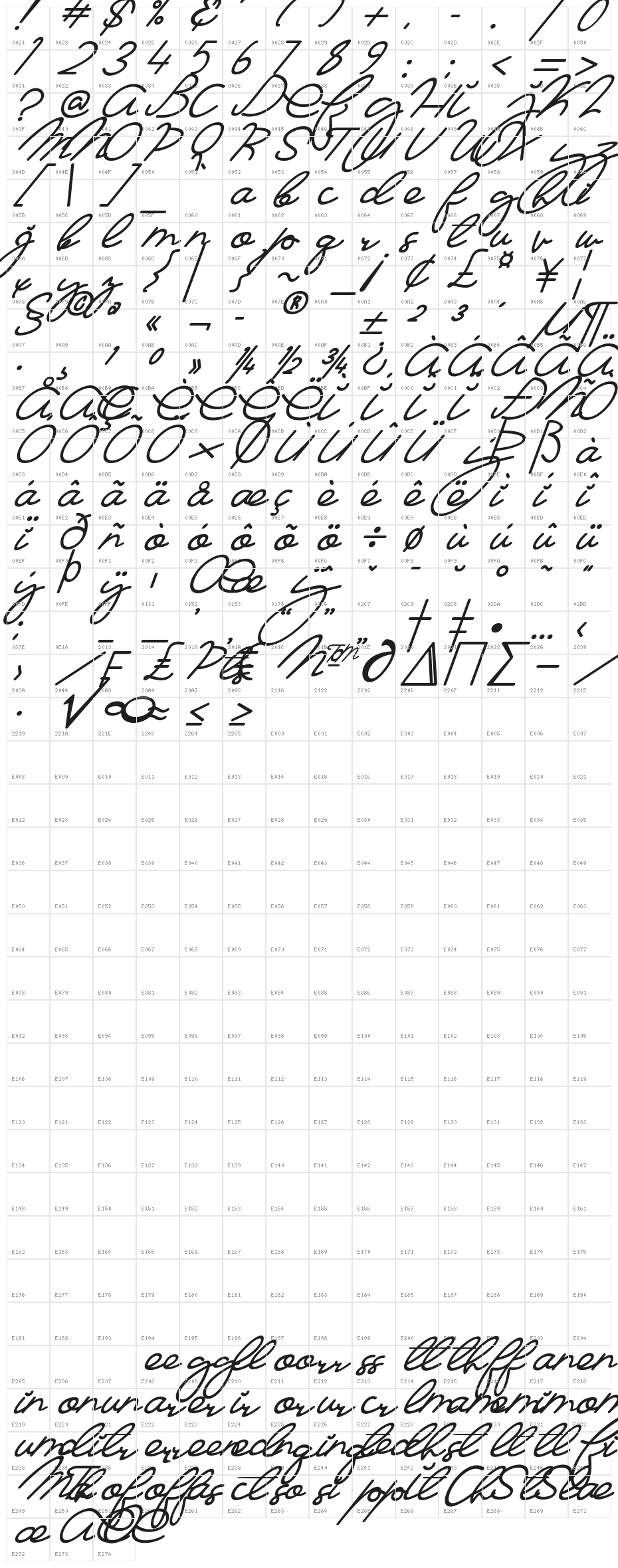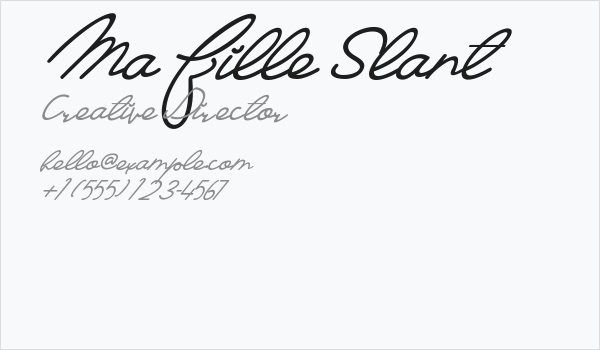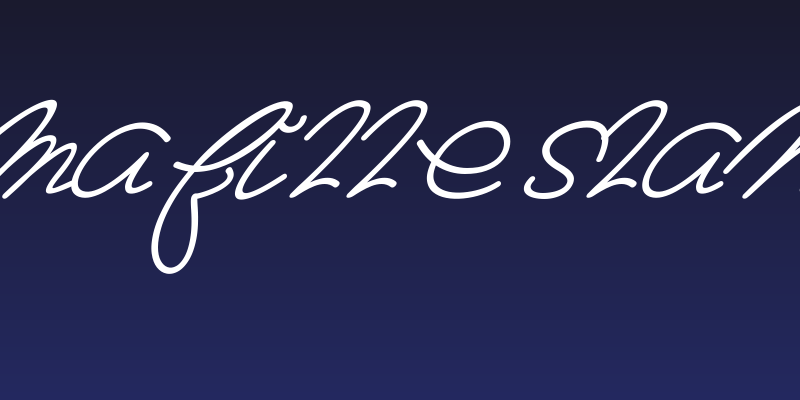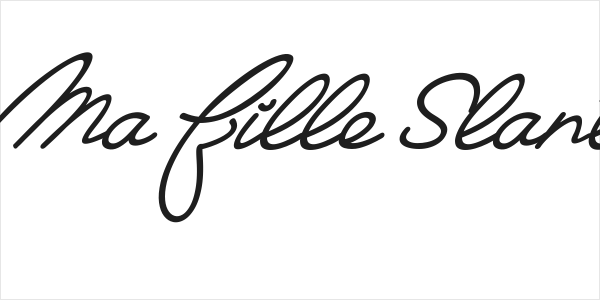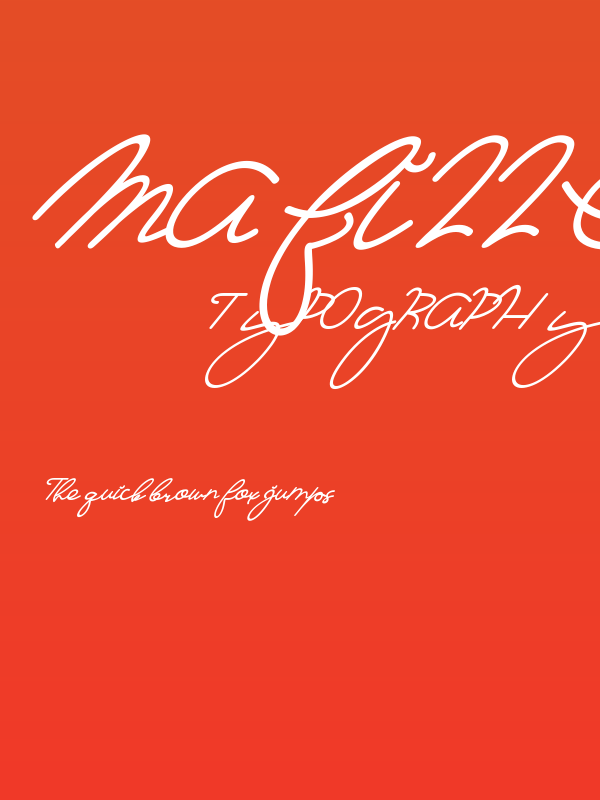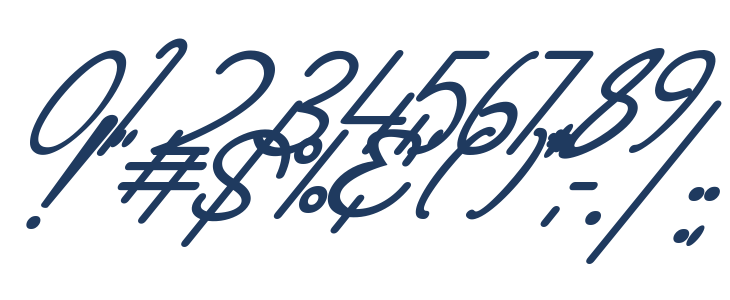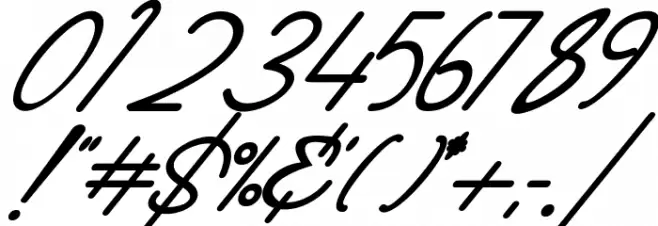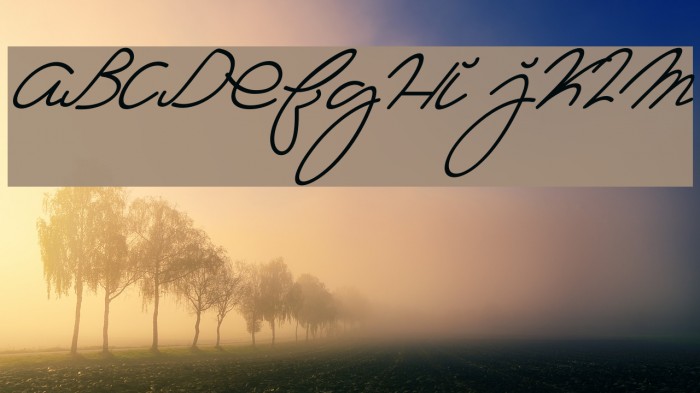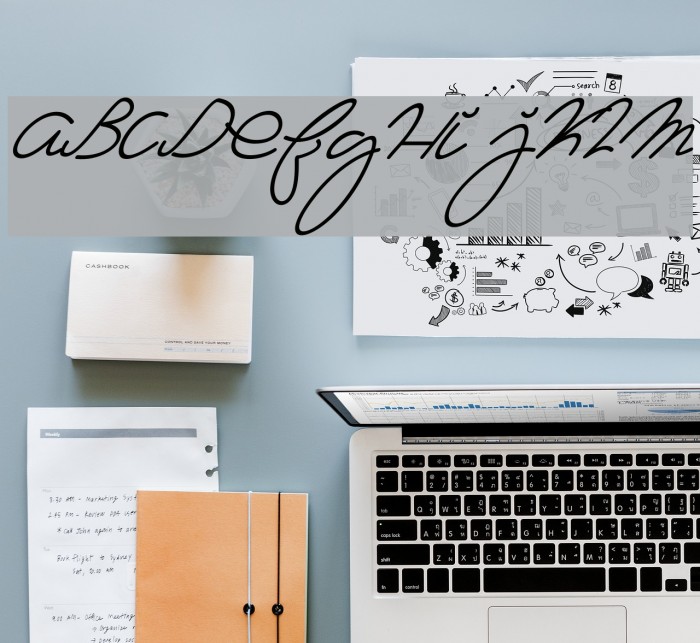
Ma Fille Slant Font
This font exhibits a flowing, cursive style that mimics elegant handwriting. The characters are interconnected, creating a seamless and fluid appearance. The strokes are smooth and consistent, with a slight slant that adds a dynamic feel. The uppercase letters are slightly larger and more pronounced, while the lowercase letters maintain a uniform height, enhancing readability. The numerals and special characters are designed to match the overall cursive style, ensuring cohesion across all elements. This font is ideal for projects that require a personal touch, such as invitations, greeting cards, and branding materials.
| Use Case | Headlines, Decorative text, Personal projects |
| Proposed Projects | Ideal for invitations, greeting cards, personal branding, and decorative projects. |